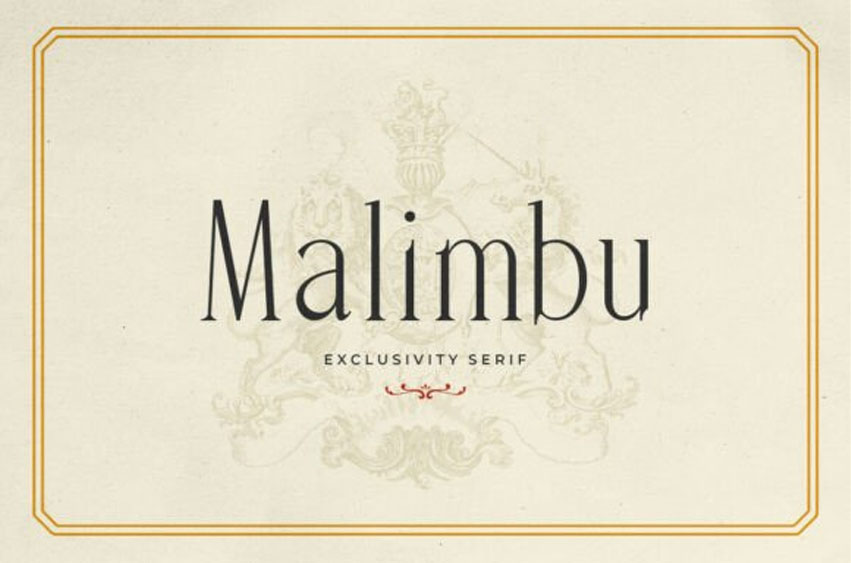
Malimbu Font
Malimbu Font Indulge in the harmonious fusion of classic charm and modern sophistication encapsulated in the polished serif typeface. Meticulously fashioned to take luxury branding up a notch, it features streamlined strokes and unobtrusive bends.
This font seamlessly weaves an aura of class into digital narratives, making it the perfect fit for ventures that require a balance between seriousness and subtlety. Witness the mesmerizing allure of merging tasteful professionalism with the exquisite charm of elegance through this timeless font.